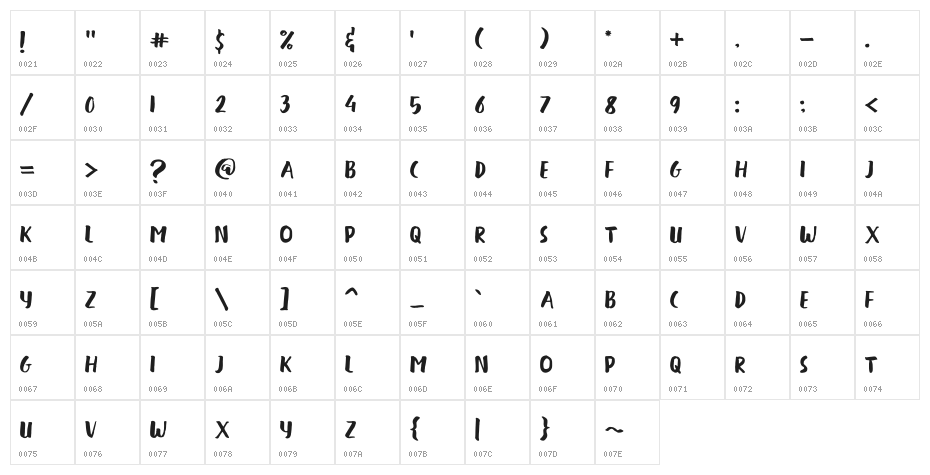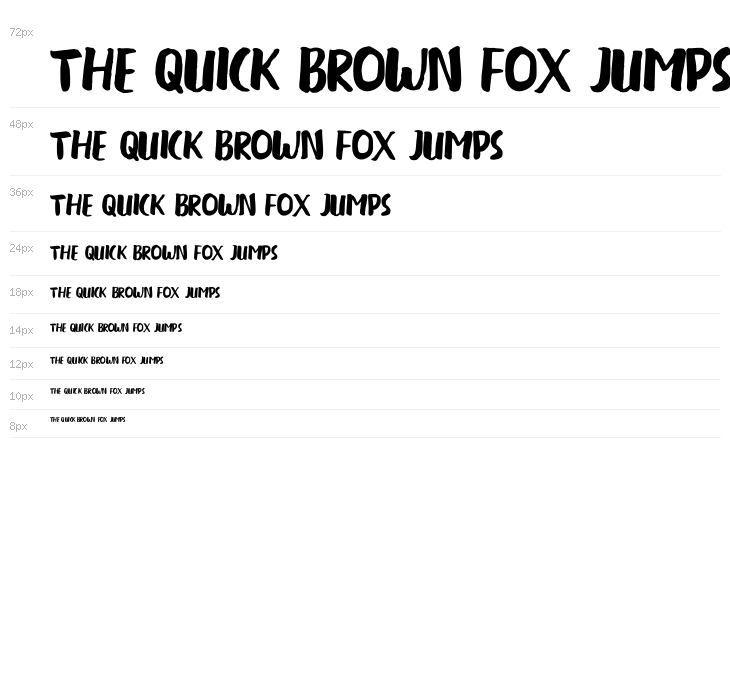
BLUESALE Font
BLUESALE Description
This font features a bold and dynamic brush script style, characterized by its thick, flowing strokes and energetic appearance. The letters are slightly slanted, giving a sense of movement and fluidity. The uppercase and lowercase letters maintain a consistent style, with rounded edges and a hand-painted look. The numbers and special characters complement the alphabet with the same bold and expressive design. This font is ideal for creating eye-catching headlines, posters, and branding materials that require a personal and artistic touch.
Proposed ProjectsIdeal for branding, posters, headlines, and any project needing a personal, artistic touch.